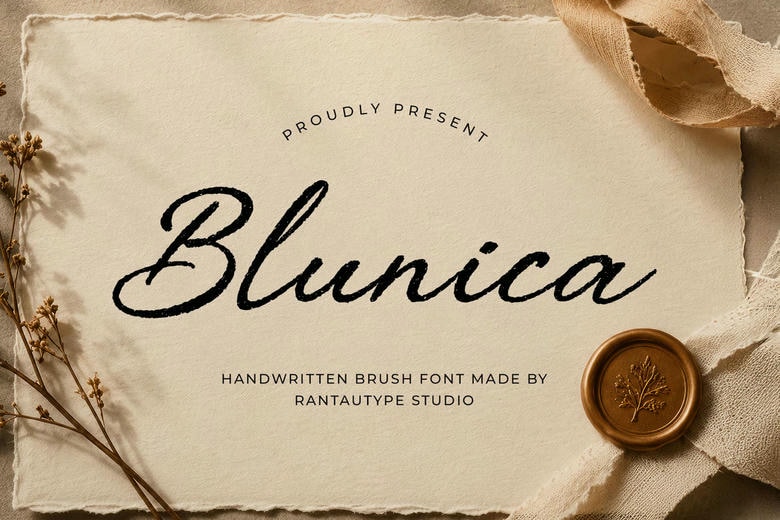
Blunica Font
Blunica is a handwritten brush font that shows off the beauty of natural handwriting and has a bold personality. With real brush textures and smooth strokes, it looks handcrafted, expressive, and polished.
Blunica is a great choice for creative projects, modern designs, and lifestyle branding. Use it for logos, titles, covers, invitations, wedding designs, magazines, social media, ads, quotes, packaging, labels, photography, watermarks, special events, and more.
Blunica Handwritten Brush Font